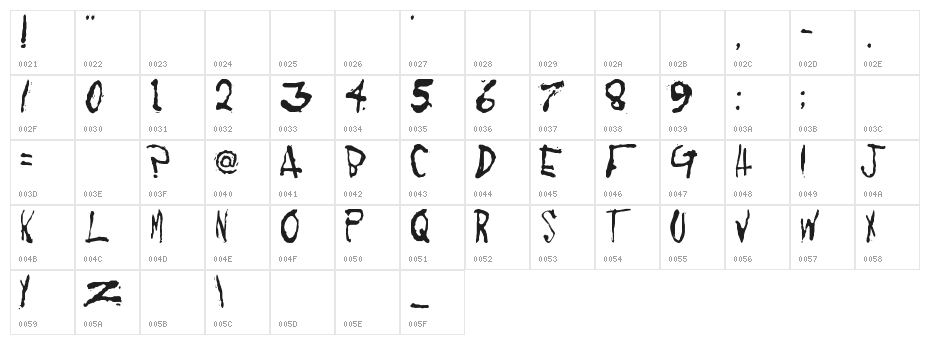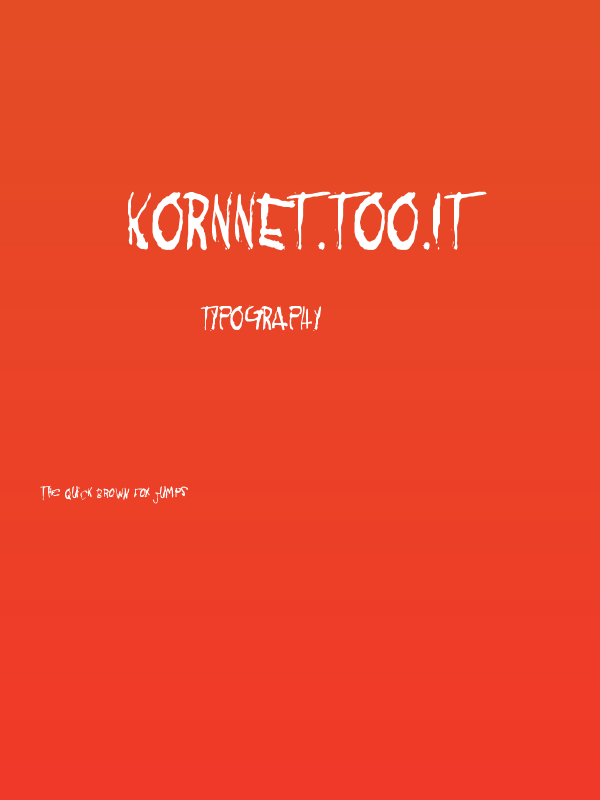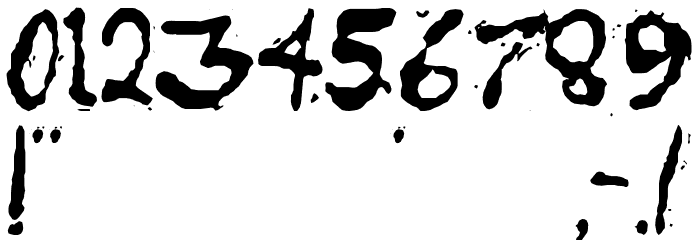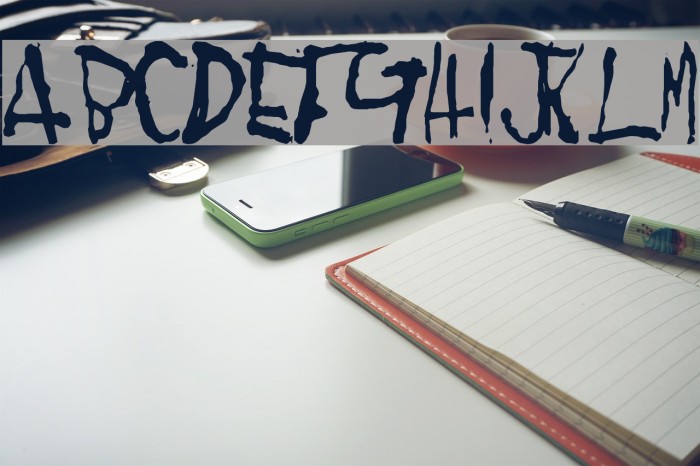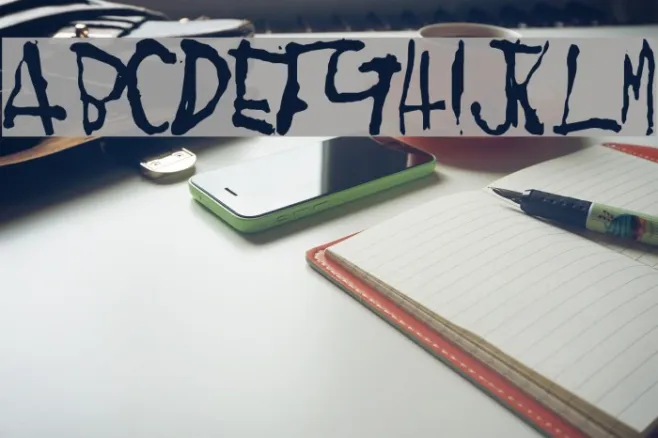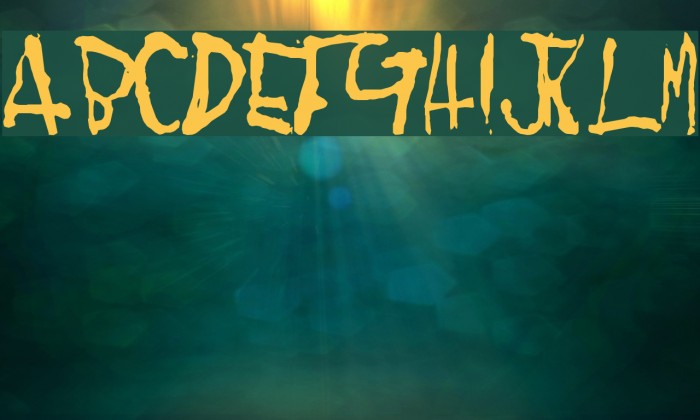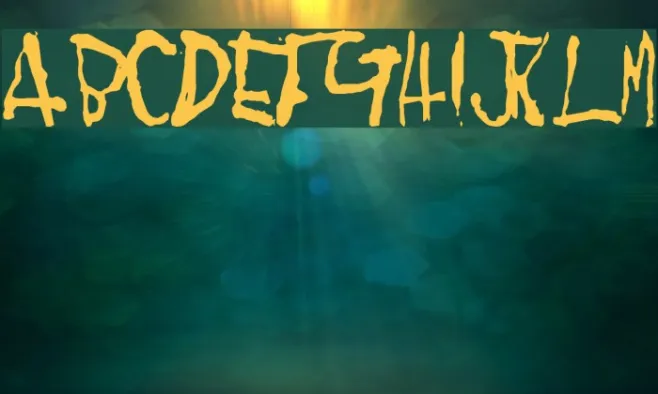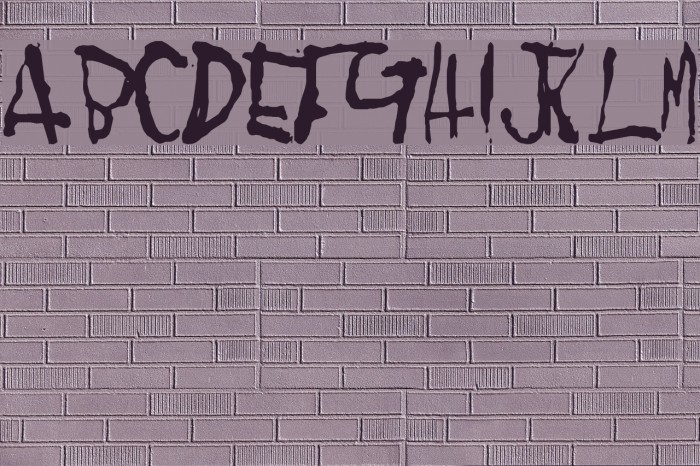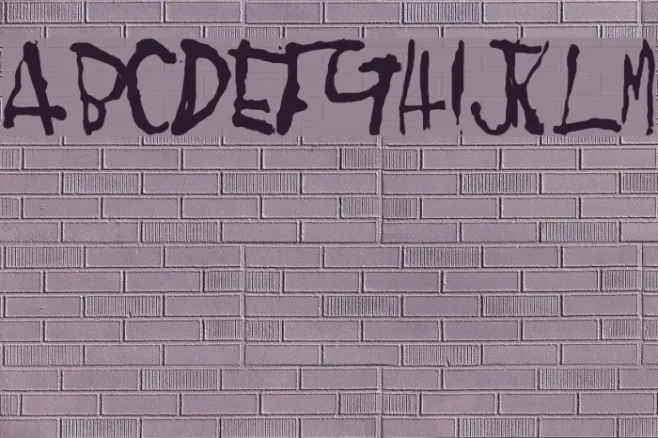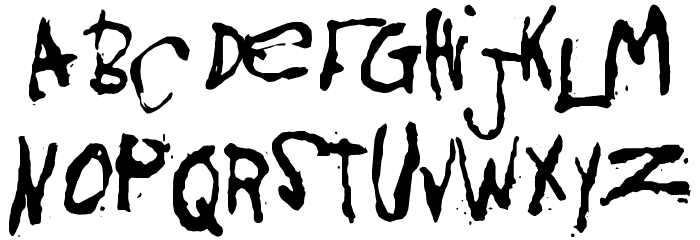
KoRnNet.too.it Font
KoRnNet.too.it Description
This font exhibits a raw, expressive style reminiscent of hand-drawn graffiti. The characters are irregular and bold, with a rugged, distressed appearance that suggests a rebellious or edgy tone. The uppercase and lowercase letters maintain a consistent aesthetic, with jagged edges and varying stroke widths that create a sense of movement and energy. The numbers and special characters follow the same design principles, adding to the font's cohesive look. This font is ideal for projects that require a bold statement or an unconventional, artistic flair.
| Overall Style | Edgy, Artistic, Rebellious |
| Use Case | Logos, Posters, Album covers |
| Proposed Projects | Album covers, street art-inspired designs, edgy branding, posters, and creative projects needing a bold statement. |